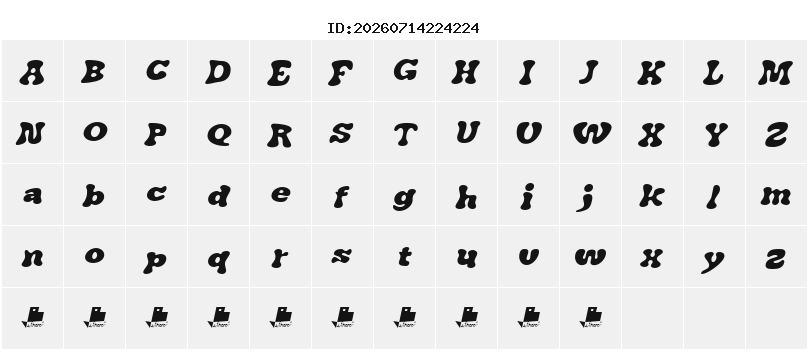
J. Airplane swash Italic Preview
• Font Name: J. Airplane swash Italic
• Designer: defharo
• Manufacturer: deFharo
• Description: TipografÌa psicodÈlica en homenaje a los aÒos 60 y principalmente a los carteles de conciertos de m˙sica pop de la Època. Jefferson Airplane es una fuente org·nica con swashes. ⁄salos en combinaciÛn con las min˙sculas: [] {} <> # * & Thank you for your interest in my font :) This font is free for personal use only. If you are interested in commercial use, you can buy the license in: http://defharo.com/diseÒo-grafico/tipografia/j-airplane-swash-font You may redistribute my fonts on your site as long as credit is http://defharo.com as the original author. Donations are always welcome :)